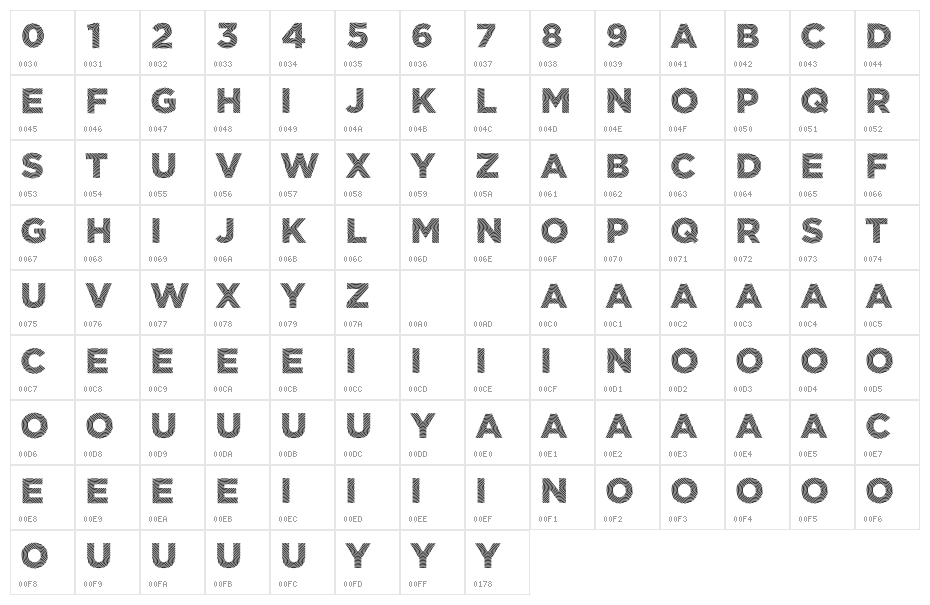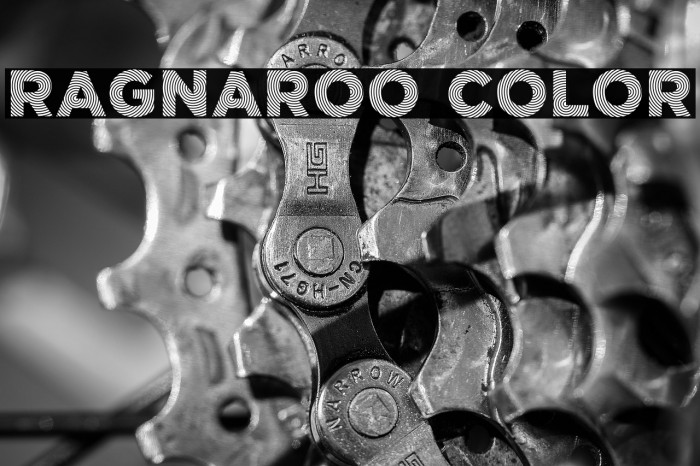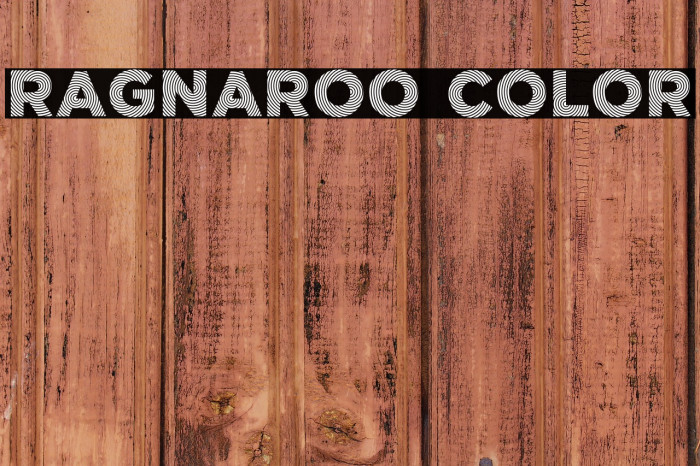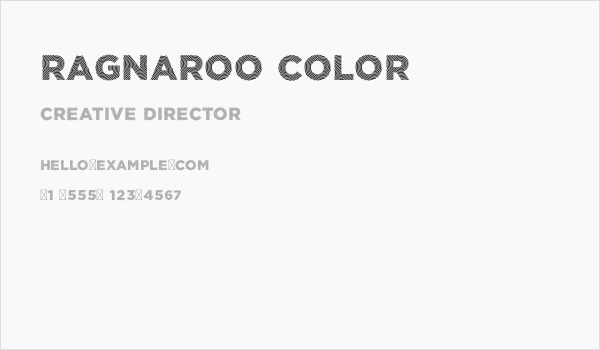
Ragnaroo Color Font
Ragnaroo Color Description
This font features a unique and eye-catching design with concentric circular patterns forming each character. The letters are bold and have a decorative flair, making them stand out in any design. The intricate line work within each character gives it a sense of depth and texture, making it suitable for projects that require a striking visual impact. The font maintains a consistent style across uppercase letters, numbers, and special characters, ensuring a cohesive look in any application.
| Overall Style | Modern, Decorative |
| Proposed Projects | Ideal for posters, branding, album covers, and any project that requires a bold and artistic touch. |